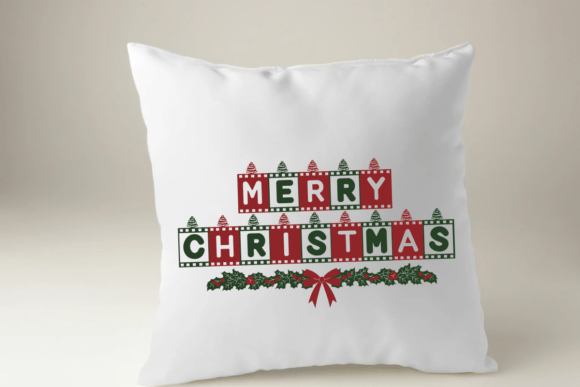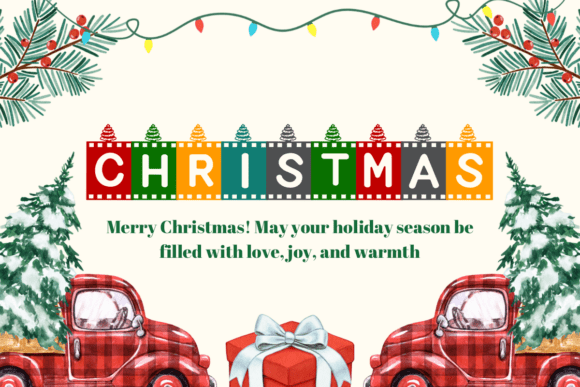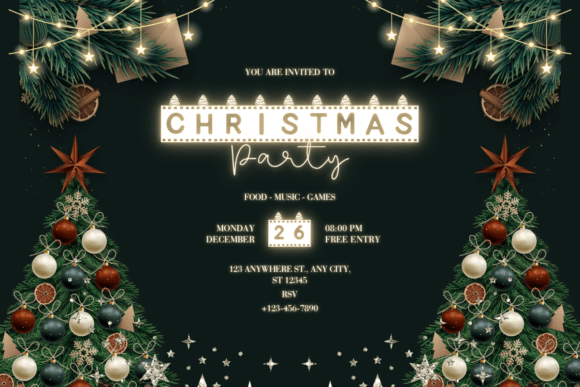
Introduction to Christmas Film Frame Font
Immerse yourself in the festive spirit with Christmas Film Frame, a decorative font that truly encapsulates the joy of the season.
This versatile typeface is perfect for personalising your notes or journal entries, adding an unmistakably cheerful touch to your DIY greeting cards The magic doesn’t stop there.
Key Features of Christmas Film Frame Font
Why Choose Christmas Film Frame Font?
Christmas Film Frame Font offers exceptional quality and versatility, making it a valuable addition to your design toolkit. Whether you’re creating for personal projects or commercial use, Christmas Film Frame Font delivers professional results.